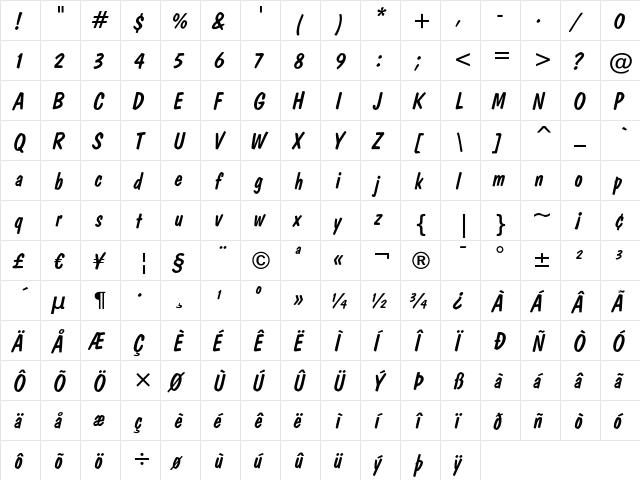
Dom Diagonal
| Style | Diagonal |
Design Context for Dom Typeface
Dom offers clean, dependable letterforms without strong stylistic allegiance, making it a practical choice for designers who need flexibility.